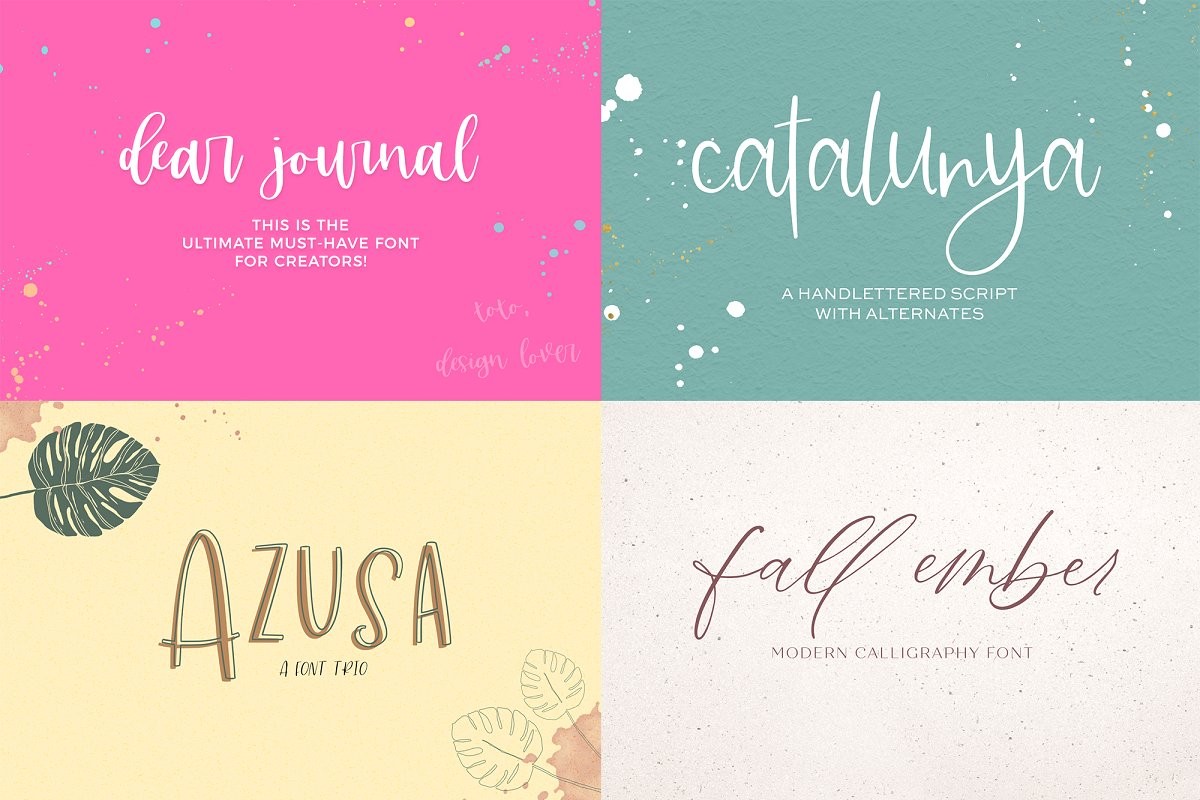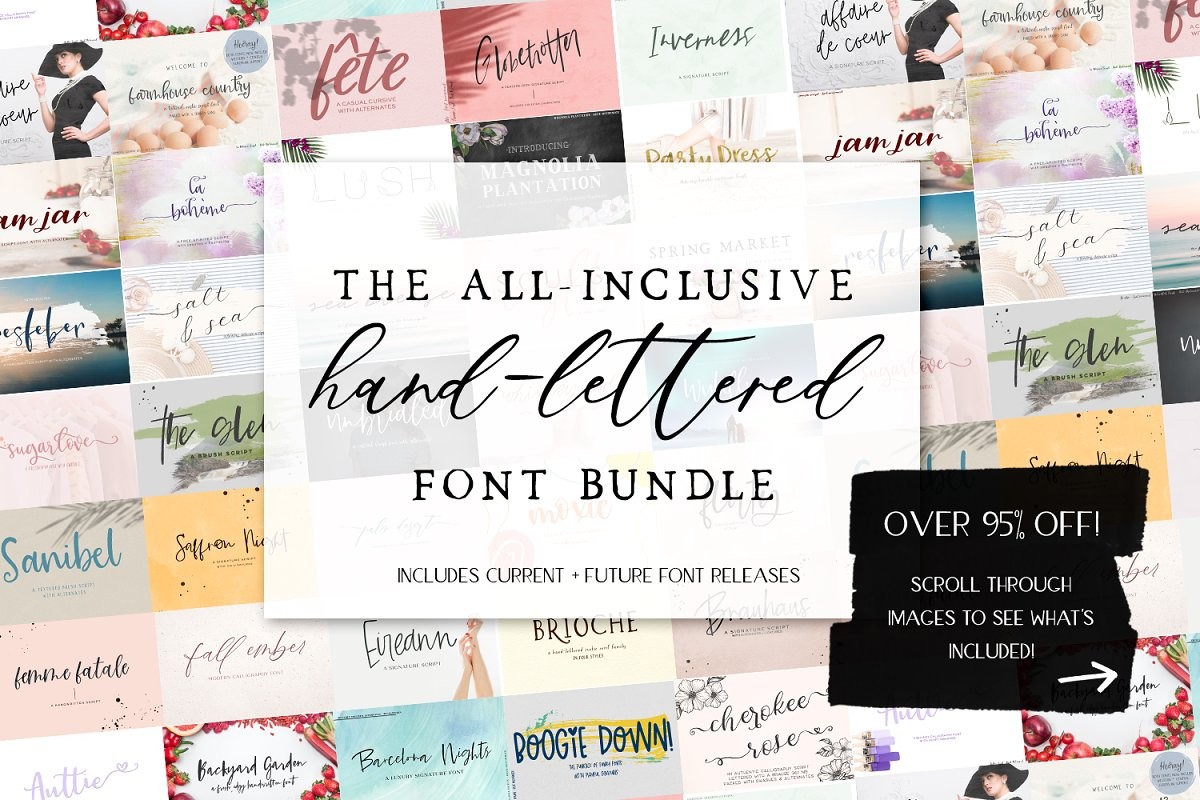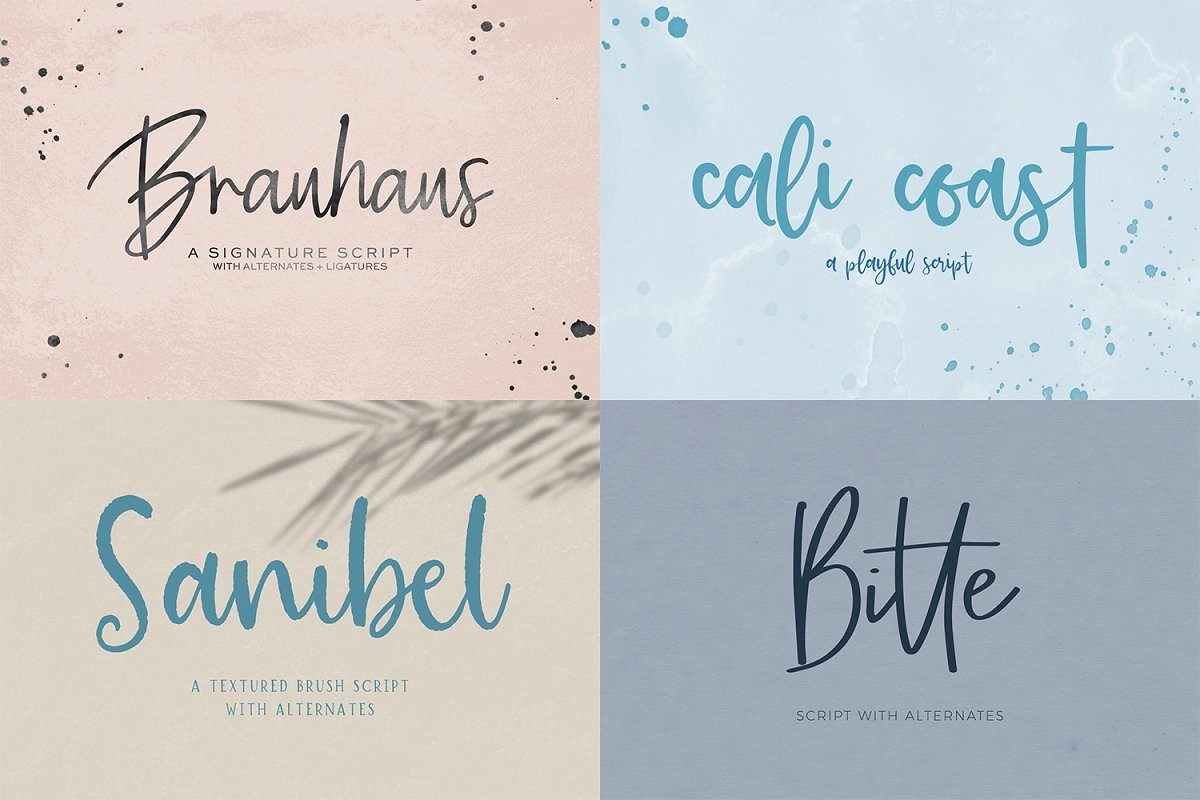
The variety is astounding: script fonts, serif fonts, sans fonts, calligraphy fonts, crafting fonts, signature fonts, and rustic fonts are included in this bundle, making it incredibly versatile. It's a powerhouse addition to any designer's font arsenal! I'm a little nuts about alternates + ligatures, so many of these fonts include a ton of extras, making them even more diverse + useful!